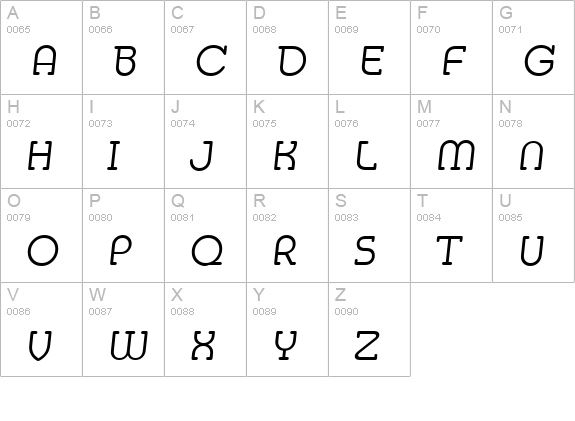
MexicoSerial-Light-Italic is a refined, elegant, italic variant in the MexicoSerial typeface family \xE2\x80\x94 well suited to elegant body text, refined sub-headings, and luxury branding.
MexicoSerial-Light-Italic is a stylish and elegant font that exudes sophistication and modernity. Its sleek design and delicate italicized features make it perfect for adding a touch of class to any project. The light weight of the font gives it a refined and airy quality, ideal for creating a sense of elegance and professionalism. Best of all, MexicoSerial-Light-Italic is available for free download at FontsMarket.com. This means you can easily access and use this beautiful font in your designs without any cost. Whether you're working on a branding project, designing invitations, or creating a sleek website, MexicoSerial-Light-Italic is a versatile and attractive choice that will elevate your work to the next level. Download it today and add a touch of sophistication to your designs!